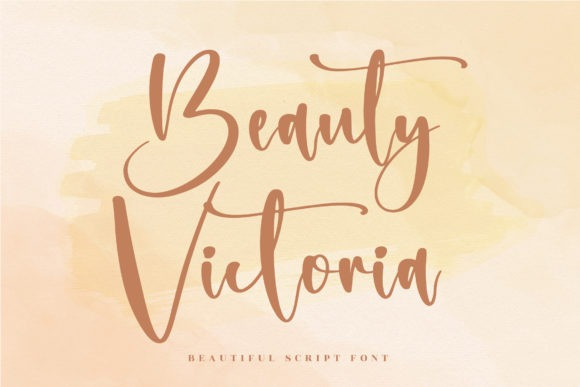
Beauty Victoria Font
Beauty Victoria Script Font is a lovely and delicate script font that exudes elegance and class. This font was particularly crafted for those who need a beautiful and refreshing look to their designs.